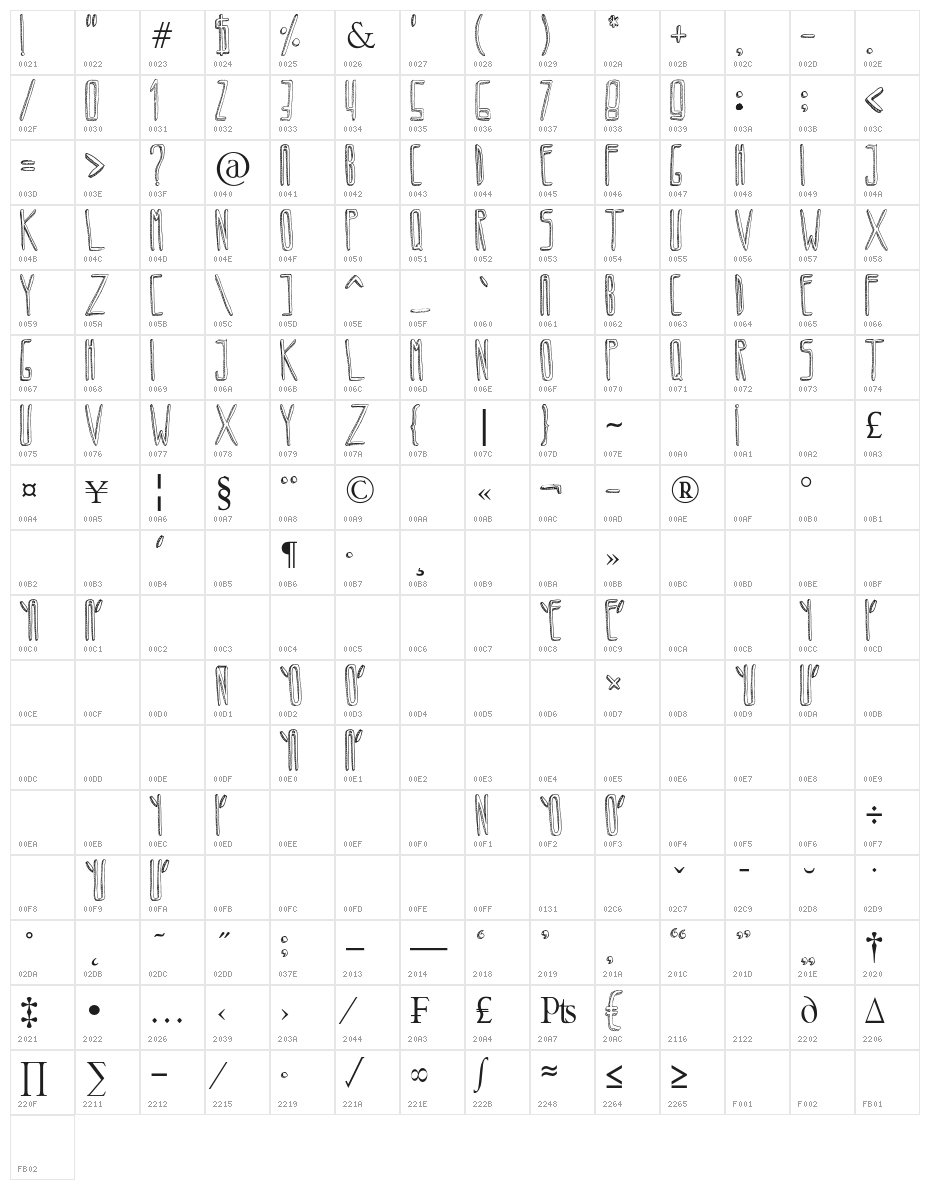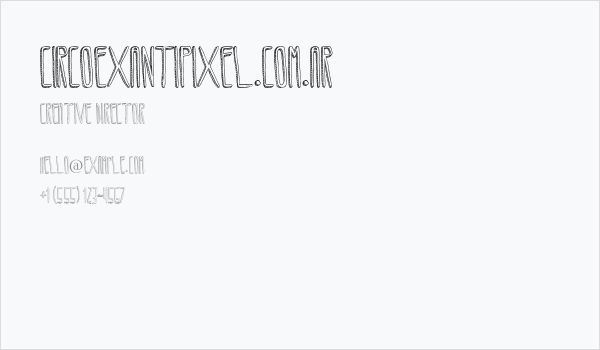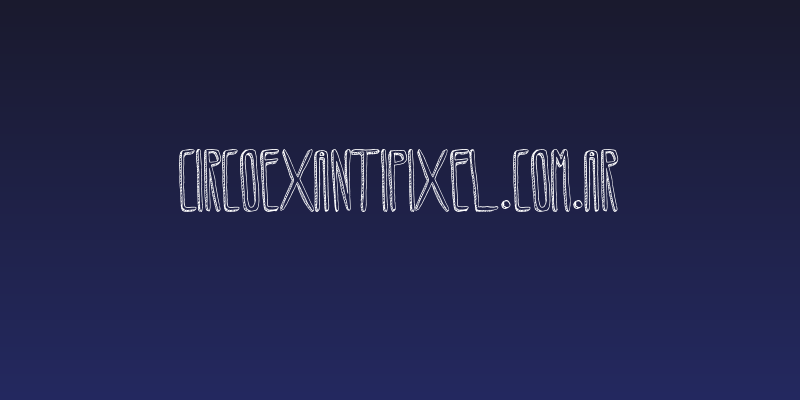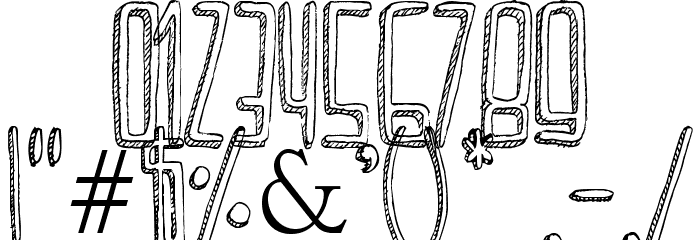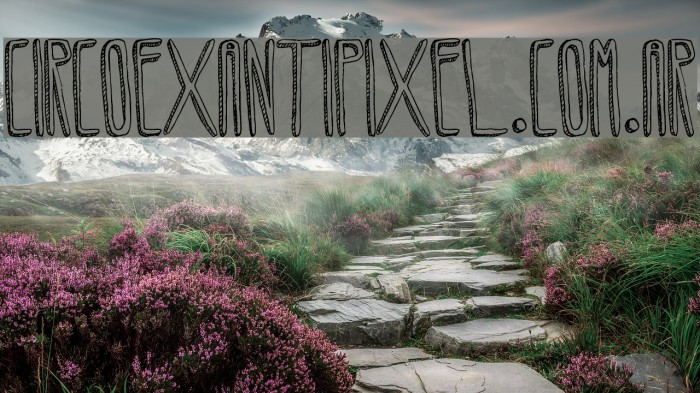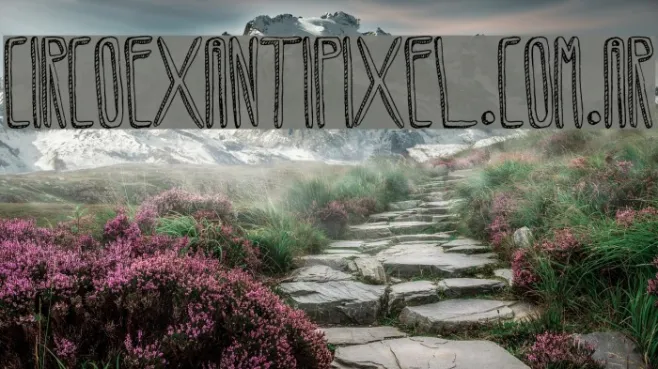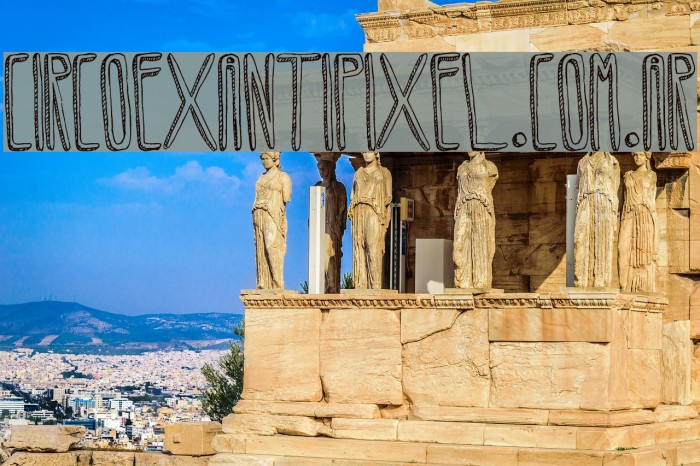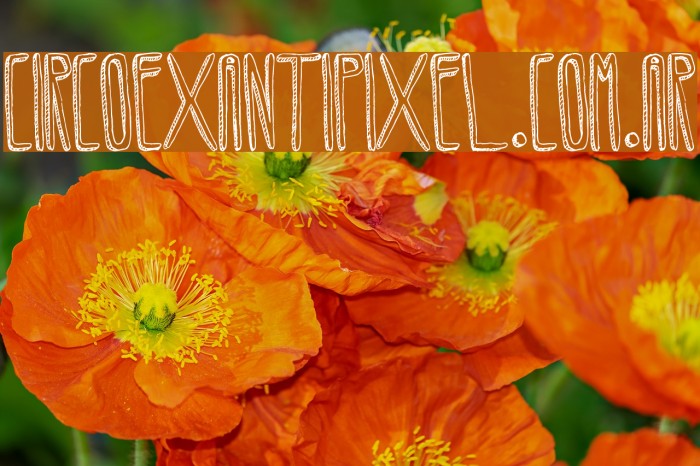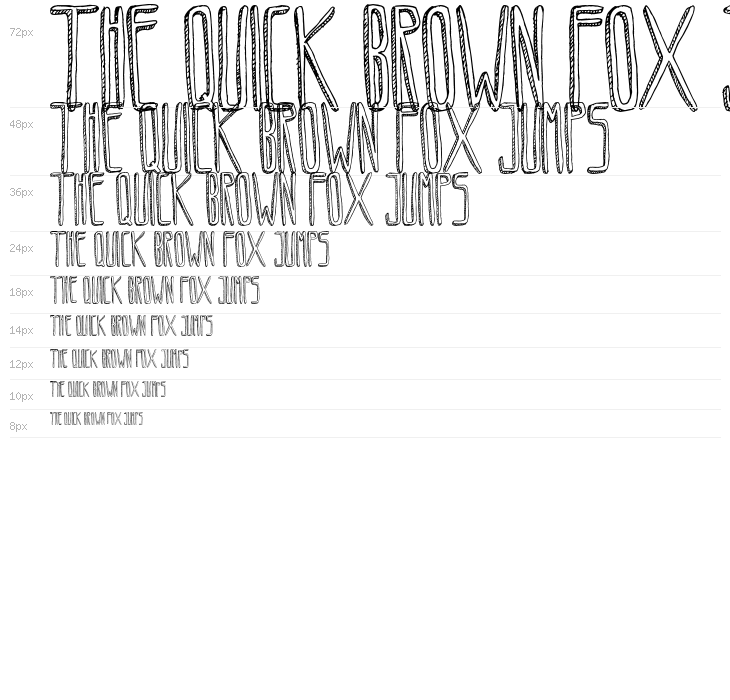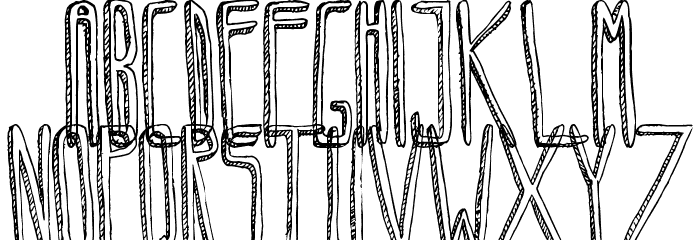
CircoexANTIPIXEL.com.ar Font
CircoexANTIPIXEL.com.ar Description
This font features a unique, hand-drawn style with a playful and artistic flair. Each character is outlined with a sketch-like quality, giving it a textured appearance reminiscent of doodles or casual illustrations. The letters are tall and narrow, with a consistent line weight that adds to its whimsical charm. The numbers and special characters follow the same design principles, ensuring a cohesive look across all elements. This font's distinct personality makes it stand out, offering a creative and informal vibe.
| Proposed Projects | Ideal for creative projects such as posters, greeting cards, children's books, and branding for artistic or whimsical products. |